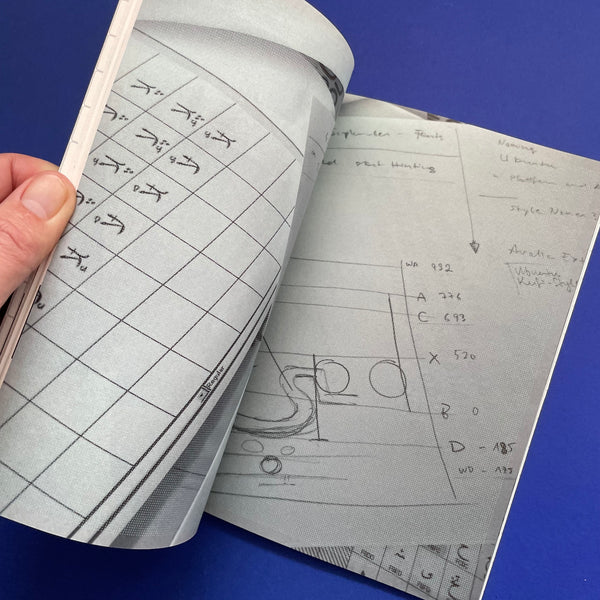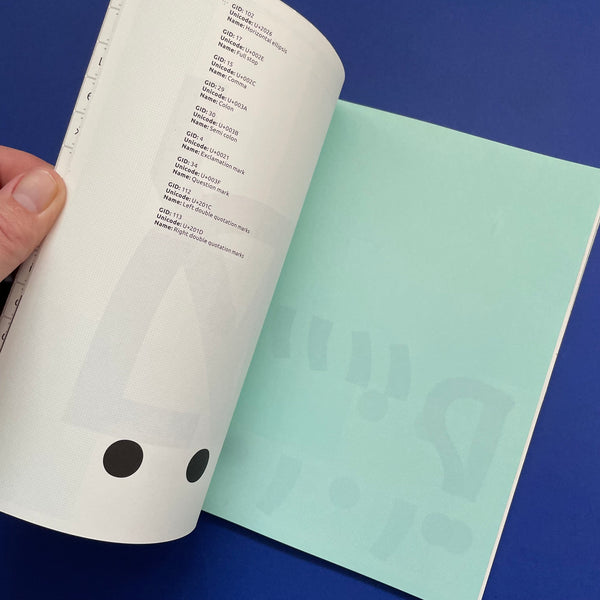
Shape my Language: The Ubuntu Font Project (Dalton Maag)
(Introduction) 'Clarity and character aren't comfortable bedfellows, but that's exactly what we wanted to achieve in creating a new font for the Ubuntu interface. As a platform that's used by tens of millions of people every day we knew readability would be paramount.
But we also wanted the typeface to reflect our values and our character.
Being a global phenomenon and caring about every user, we also wanted the typeface to cover a wide variety of character sets. And we wanted to build it in partnership with those users, involving them in the review and refinement process, benefiting from the wisdom of crowds while retaining firm design focus and leadership. We also wanted it to reflect our values of openness and contribution, with a license that lets anybody else use the font for any purpose, as well as allowing them to build derivative works without having to ask permission.
Dalton Maag agreed to take on the challenge - to lead the design process, working both with us as a customer and with a global audience of enthusiastic types; from teachers to rocket scientists, from developers to artists, from grandchildren to grandparents, from Cape Town to Moscow. The process has been fun and productive, and our community of users and contributors are delighted with the result and helping to expand and improve it further.
We hope you love it too!' Mark Shuttleworth, Ubuntu Founder